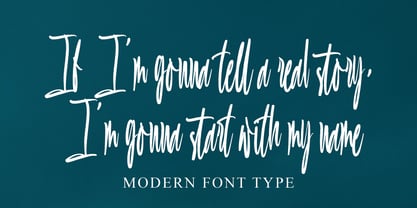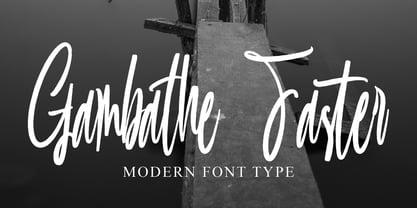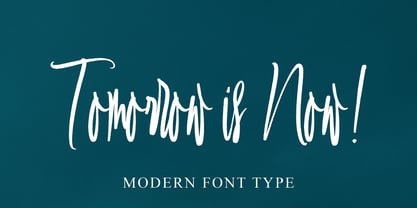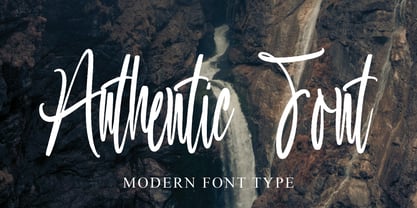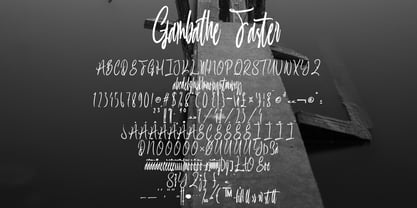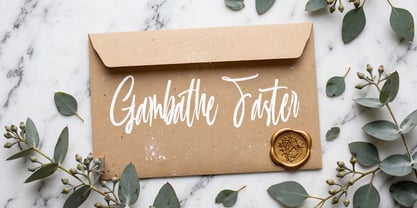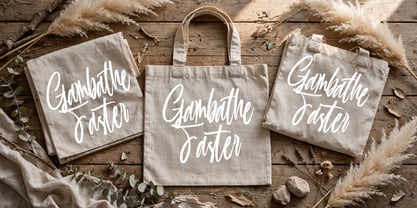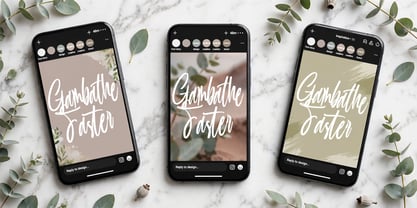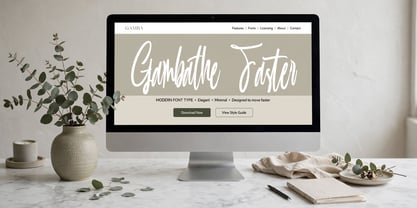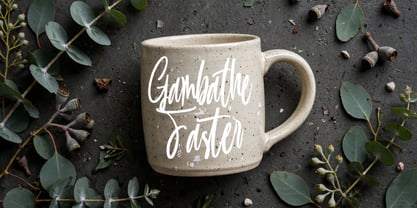
Gambathe Faster
The Gambathe Faster Font Family was designed by Dhoni Trihatmoko and published by Ayska. Gambathe Faster contains 1 styles.
Dive into the enchanting universe of Gambathe Faster, an astounding font blending contemporary panache with the timeless elegance of calligraphy. Gambathe Faster portrays a cultured sophistication that sets it apart, deeming it an indispensable part of any creative venture. Leverage this captivating typeface to engage your blog followers, infuse a distinctive style into your digital planner layouts, elevate your party invites or inject piquant charm into your DIY greeting cards. Venture into the ceaseless refinement and imaginative color of Gambathe Faster and behold how it revitalizes your lovingly assembled photo albums or personalized home decor collections. Its unparalleled knack to morph ordinary digital designs into compelling visual epics is unrivaled. Amplify your creative journey with Gambathe Faster, and prepare to be dazzled as your creative drafts unfold into remarkable masterpieces. Surrender to the irresistible allure of Gambathe Faster's mesmerizing design capability that transfigures your artistic concepts into enthralled, brilliant pieces of art.